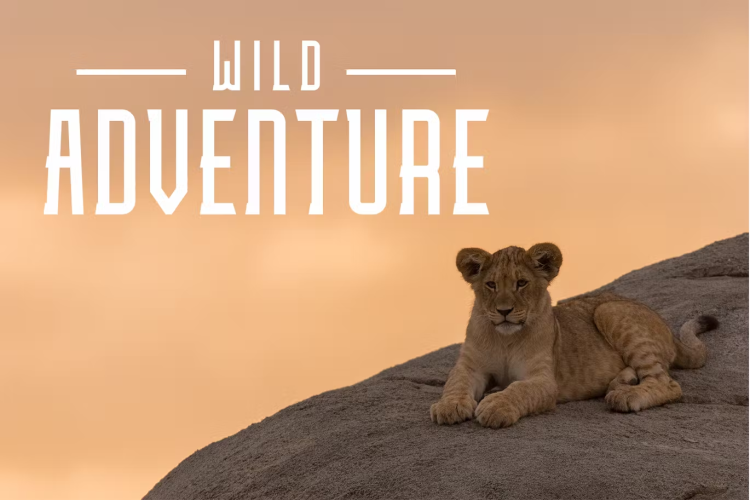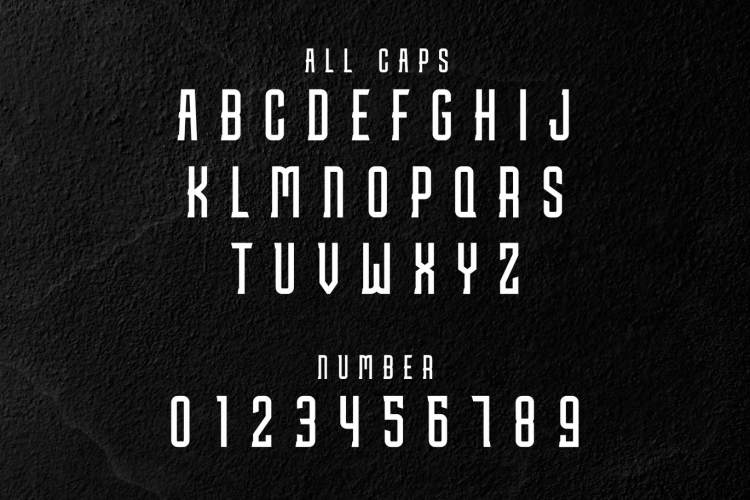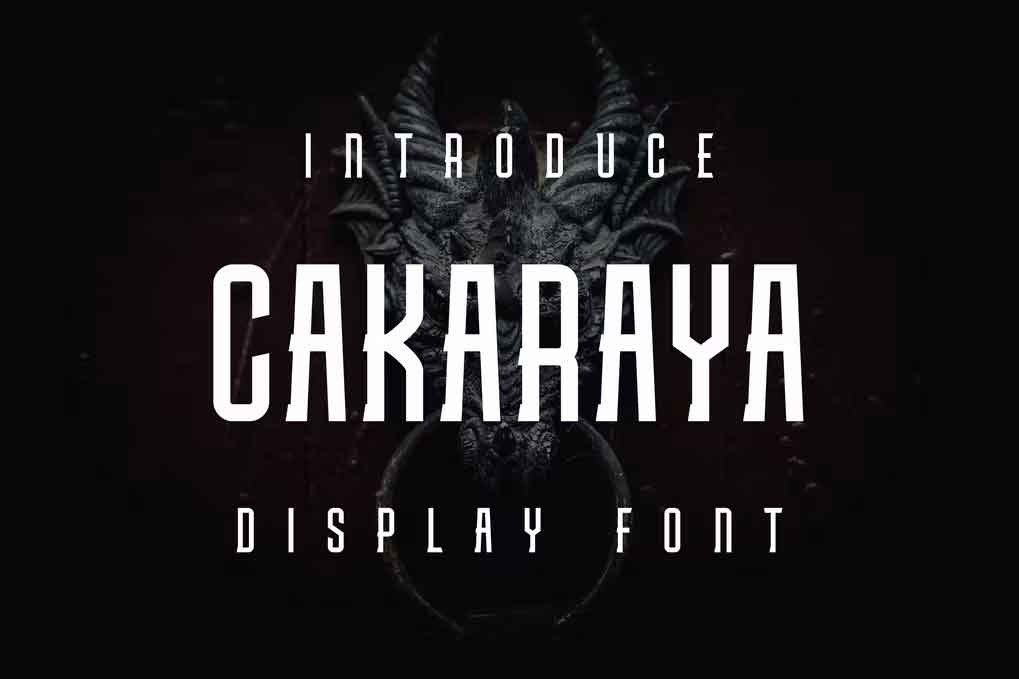
Cakaraya Font
Proudly present our new product Cakaraya Font is a modern and authentic font. Perfect for both professional and branding needs of a product. This font is s…
Cakaraya Font is a modern and authentic font. Perfect for both professional and branding needs of a product. This font is suitable for any branding project like quotes, logo, blog header, poster, banding, letter, invitation, stationery, etc… Designed as a versatile and flexible that can be used on a range of projects and mediums.outstanding in a wide range of contexts.
Where Cakaraya Font works best
Cakaraya Font stays legible at small sizes, which makes it a strong choice for navigation, buttons and dashboards in web design and app interfaces.
Clean sans serifs like Cakaraya Font are the default language of SaaS, fintech and product branding.
What is Cakaraya Font good for?
Cakaraya Font is a Sans Serif Fonts typeface tagged Branding, Modern, Poster, Professional. It works well for headlines, logos, posters, social media graphics and branding projects that need a distinctive sans serif fonts look.